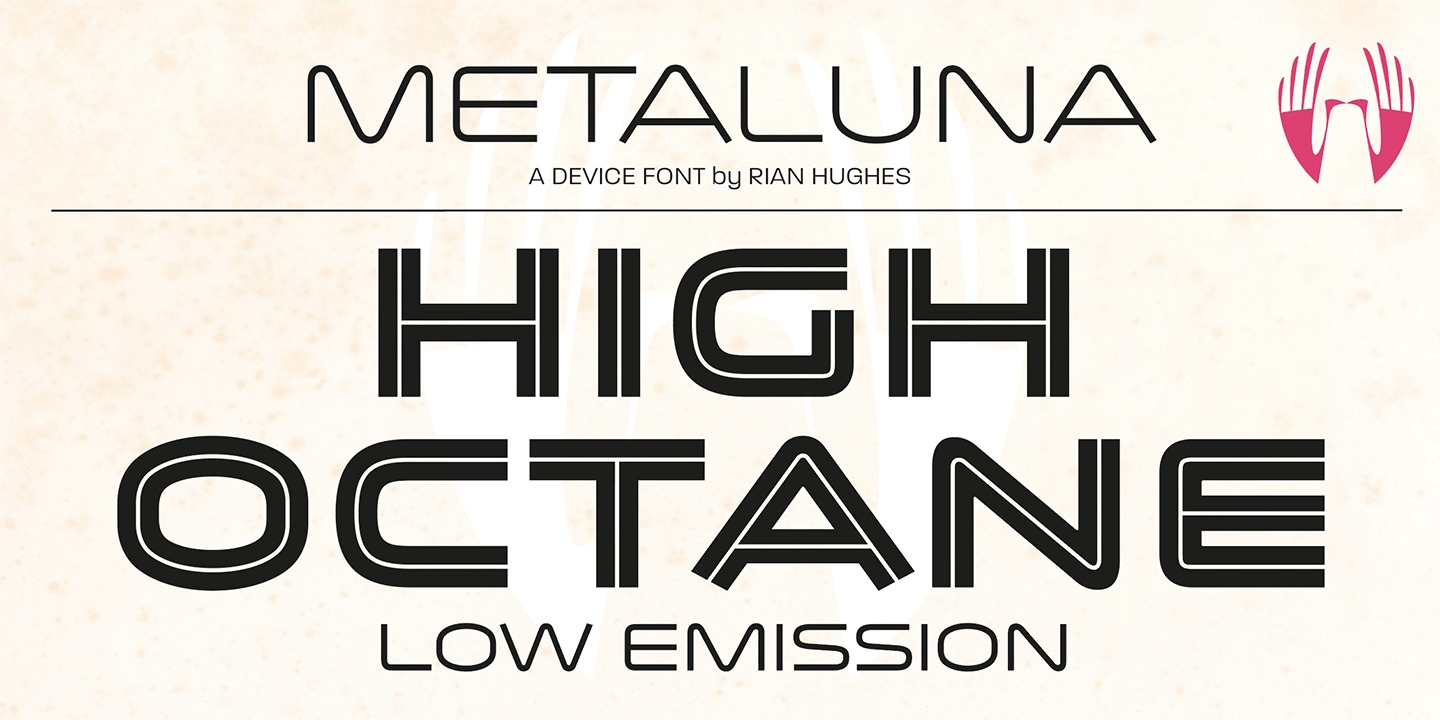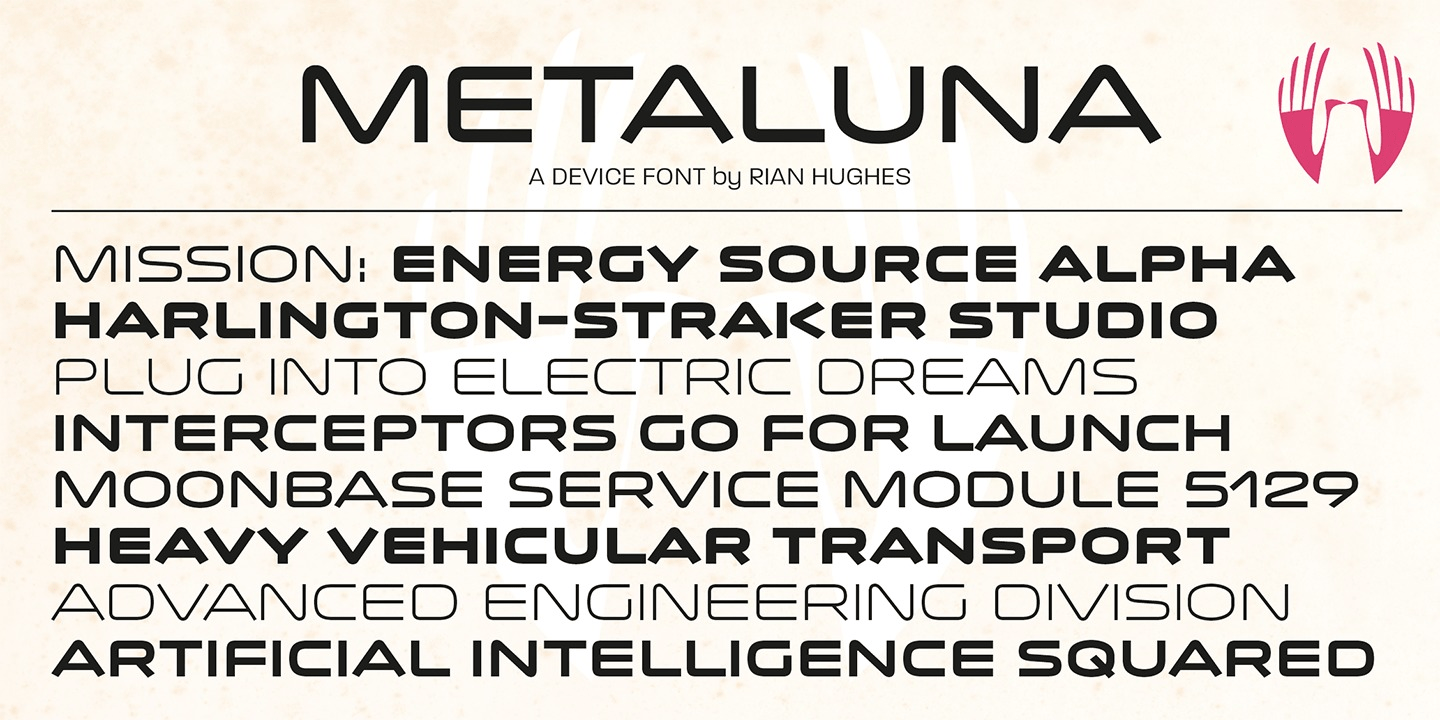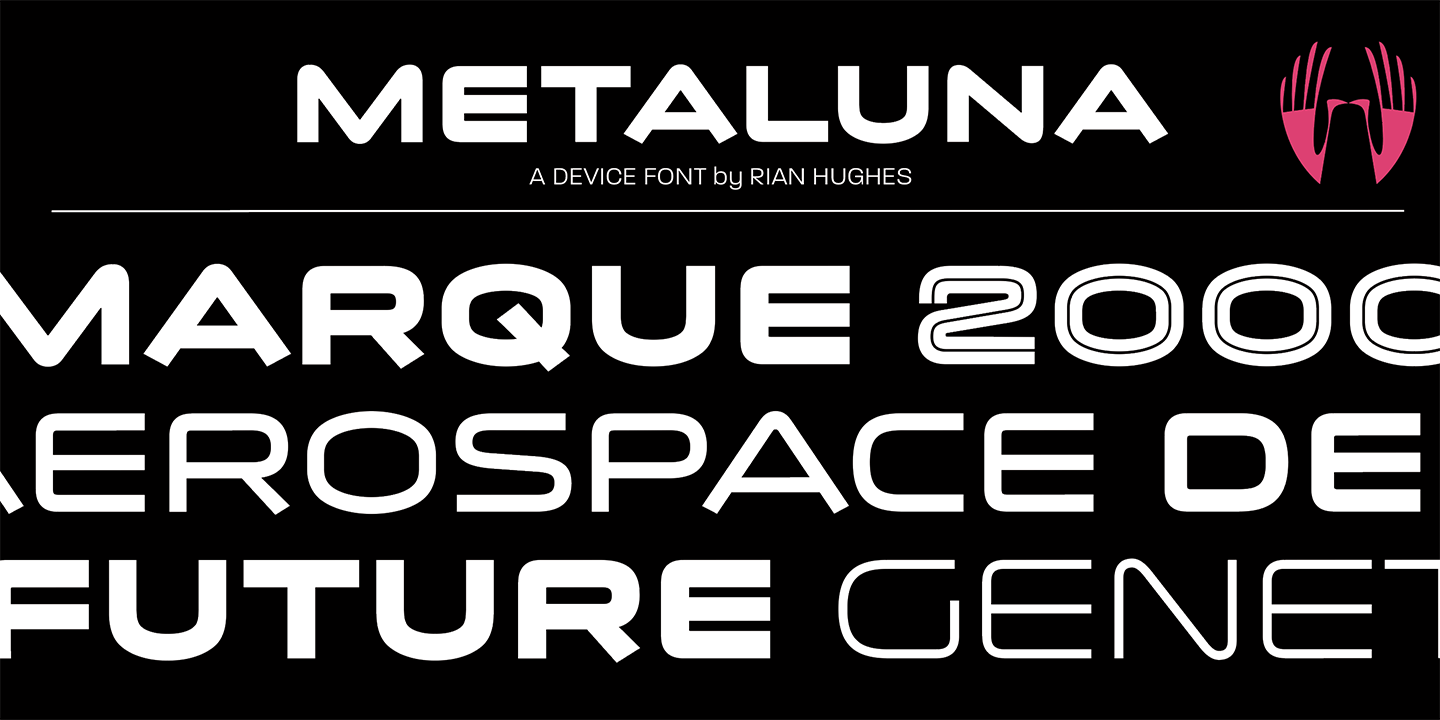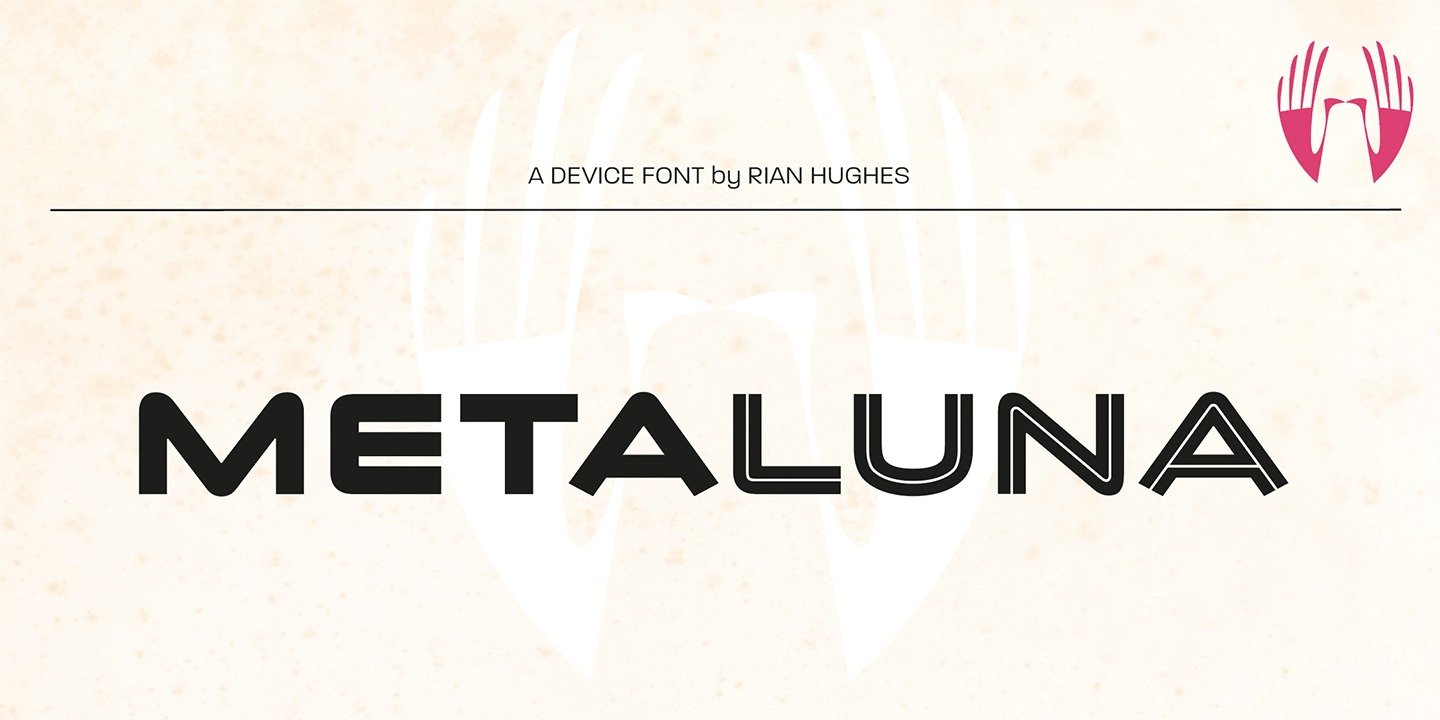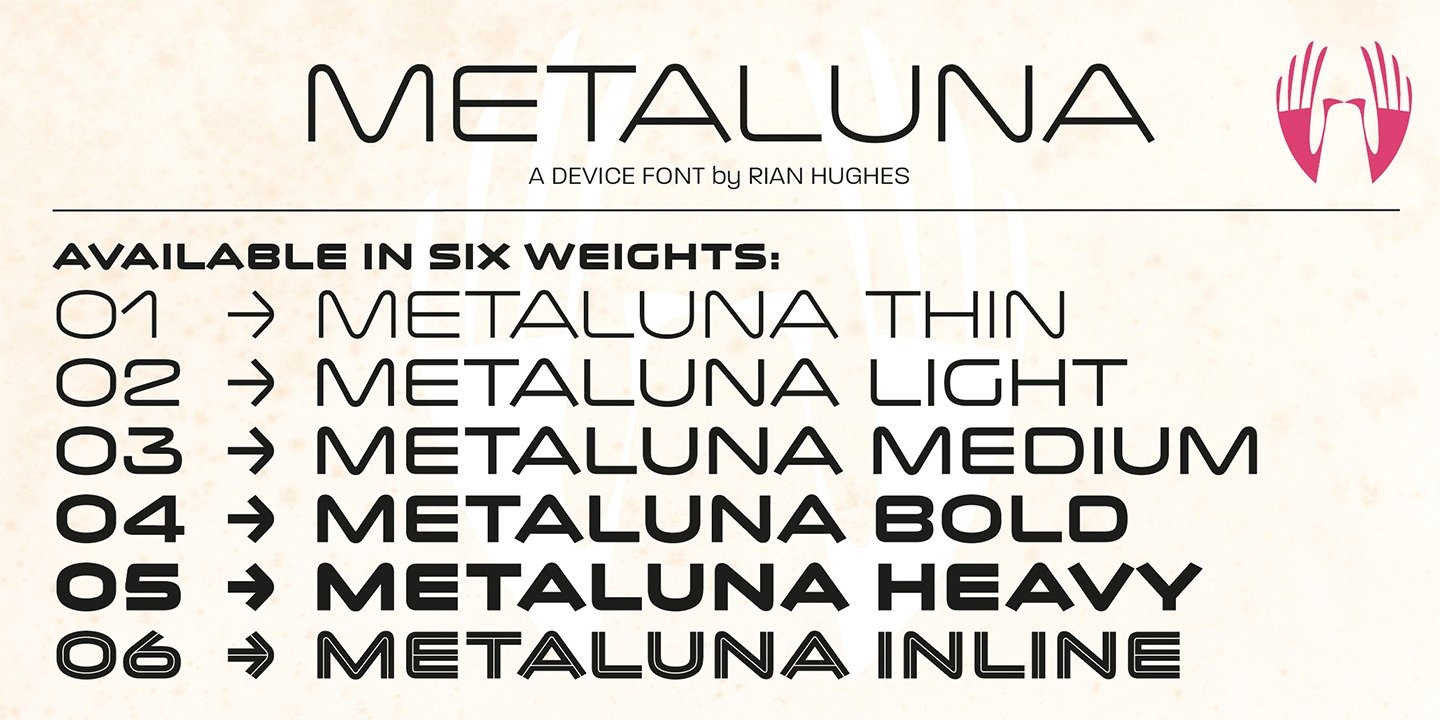
Metaluna is an extended sans serif family of five weights derived from Rian Hughes? classic Forbidden Planet logo. Sleek and modern, it suggests cutting-edge tech, supercar marques or high-precision engineering multinationals.